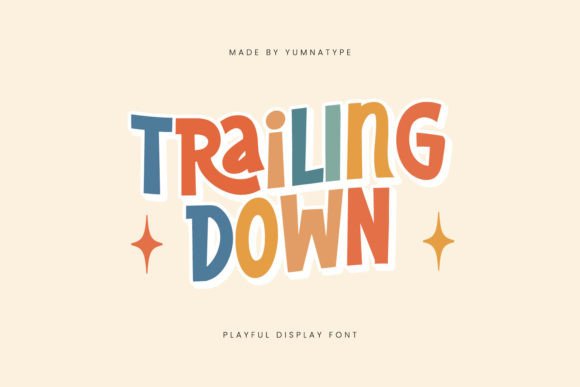
Trailing Down Font: A Delightful Display Font for Your Next Design Adventure
Are you looking for a font that can add a touch of whimsy and fun to your design project? Look no further than Trailing Down, a delightful display font crafted with a playful spirit and bold presence. In this article, we’ll take a closer look at the characteristics of Trailing Down and how it can bring a bold, cheerful vibe to your next design adventure.
What is Trailing Down Font?
Trailing Down is a display font that is characterized by its thick, uniform strokes and very low contrast. This unique combination gives the font a distinctive look that is both bold and playful. The font is designed to grab attention and add a touch of charm to any project, making it perfect for designers who want to create a fun and whimsical design.
Characteristics of Trailing Down Font
So, what makes Trailing Down font so special? Here are some of its key characteristics:
- Thick, uniform strokes: Trailing Down font features thick, uniform strokes that give it a bold and playful look.
- Low contrast: The font has very low contrast, which adds to its unique and distinctive look.
- Whimsical and fun: Trailing Down font is designed to be whimsical and fun, making it perfect for designers who want to add a touch of personality to their design.
- Bold presence: The font has a bold presence that is sure to grab attention and make your design stand out.
Uses of Trailing Down Font
Trailing Down font is a versatile font that can be used in a variety of design projects. Here are some of the ways you can use Trailing Down font:
- Headings and titles: Trailing Down font is perfect for headings and titles, where you want to grab attention and add a touch of personality to your design.
- Logos and branding: The font’s bold and playful look makes it perfect for logos and branding, where you want to create a memorable and distinctive brand identity.
- Posters and flyers: Trailing Down font is great for posters and flyers, where you want to grab attention and add a touch of whimsy to your design.
- Social media graphics: The font’s bold and playful look makes it perfect for social media graphics, where you want to create engaging and eye-catching content.
Benefits of Using Trailing Down Font
So, why should you use Trailing Down font in your next design project? Here are some of the benefits of using this font:
- Adds a touch of whimsy and fun: Trailing Down font adds a touch of whimsy and fun to your design, making it perfect for designers who want to create a playful and engaging design.
- Grabs attention: The font’s bold and playful look is sure to grab attention and make your design stand out.
- Versatile: Trailing Down font is a versatile font that can be used in a variety of design projects, from headings and titles to logos and branding.
- Easy to read: Despite its bold and playful look, Trailing Down font is easy to read, making it perfect for designs where you want to communicate a message clearly and effectively.
Tips for Using Trailing Down Font
Here are some tips for using Trailing Down font in your next design project:
- Use it sparingly: Trailing Down font is a bold and playful font, so it’s best to use it sparingly to avoid overwhelming your design.
- Pair it with a simple font: To create a balanced design, pair Trailing Down font with a simple font that provides a nice contrast to the bold and playful look of Trailing Down.
- Experiment with colors: Trailing Down font looks great in a variety of colors, so don’t be afraid to experiment and find the perfect color for your design.
- Have fun: Trailing Down font is a fun and playful font, so have fun with it and get creative with your design!
In conclusion, Trailing Down font is a delightful display font that is perfect for designers who want to add a touch of whimsy and fun to their design. With its thick, uniform strokes and very low contrast, Trailing Down font exudes a sense of playfulness and boldness that is sure to grab attention and make your design stand out. Whether you’re designing a heading, title, logo, or social media graphic, Trailing Down font is a great choice for your next design adventure.
- What is Trailing Down font?: Trailing Down font is a display font characterized by its thick, uniform strokes and very low contrast.
- What is Trailing Down font used for?: Trailing Down font is perfect for headings, titles, logos, branding, posters, flyers, and social media graphics.
- Is Trailing Down font easy to read?: Yes, Trailing Down font is easy to read, making it perfect for designs where you want to communicate a message clearly and effectively.